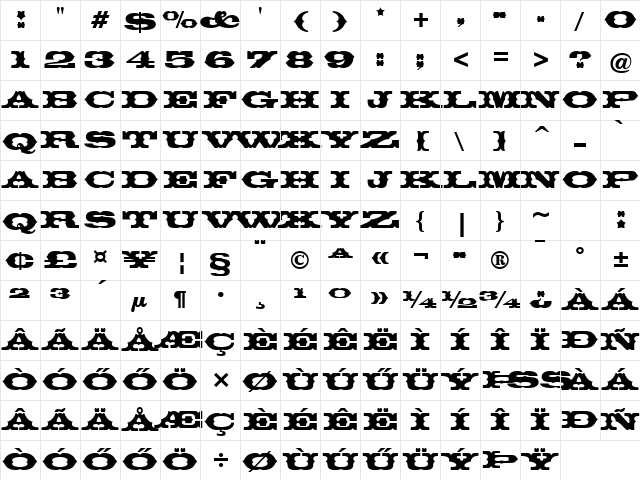
Hu_Thun Regular Free Font
Hu_Thun Regular
Design Context for Hu_Thun
Hu_Thun is a composed and adaptable typeface that performs quietly and consistently across a wide range of design contexts.
Pro Tip: Use Hu_Thun in both headline and body roles to test its range before committing to a single application.